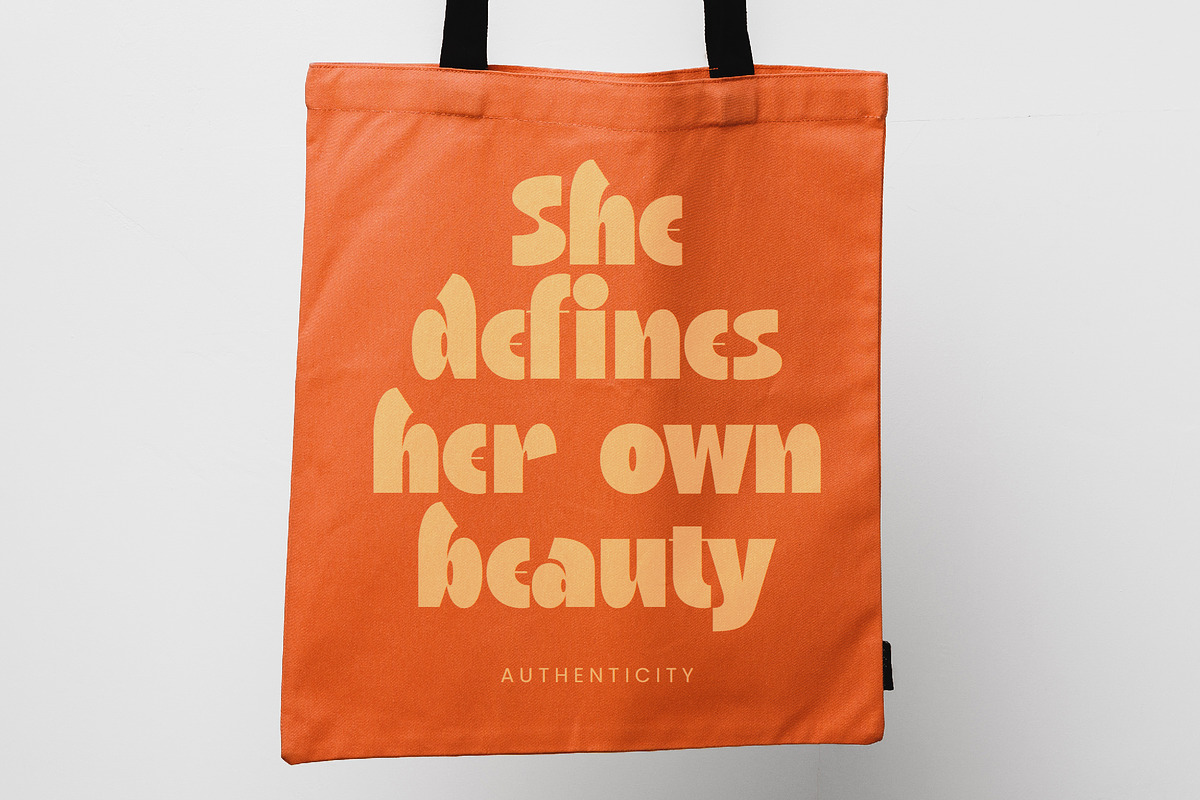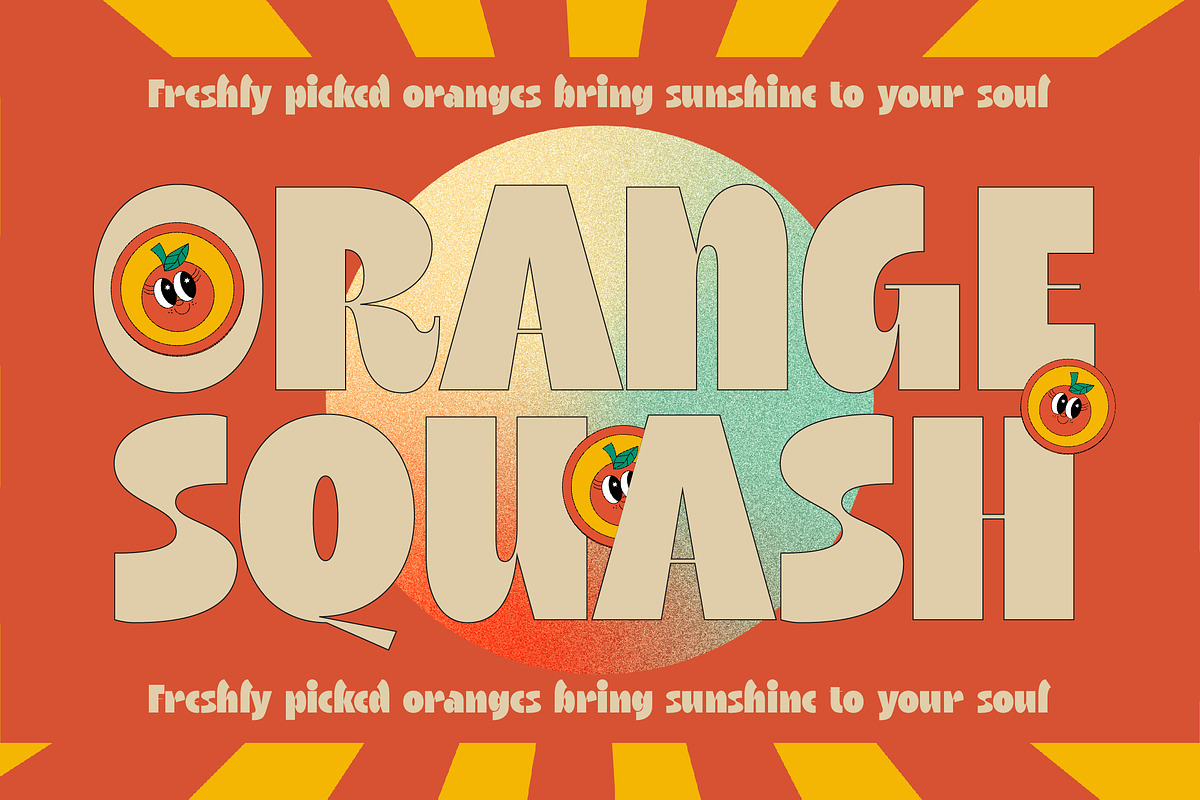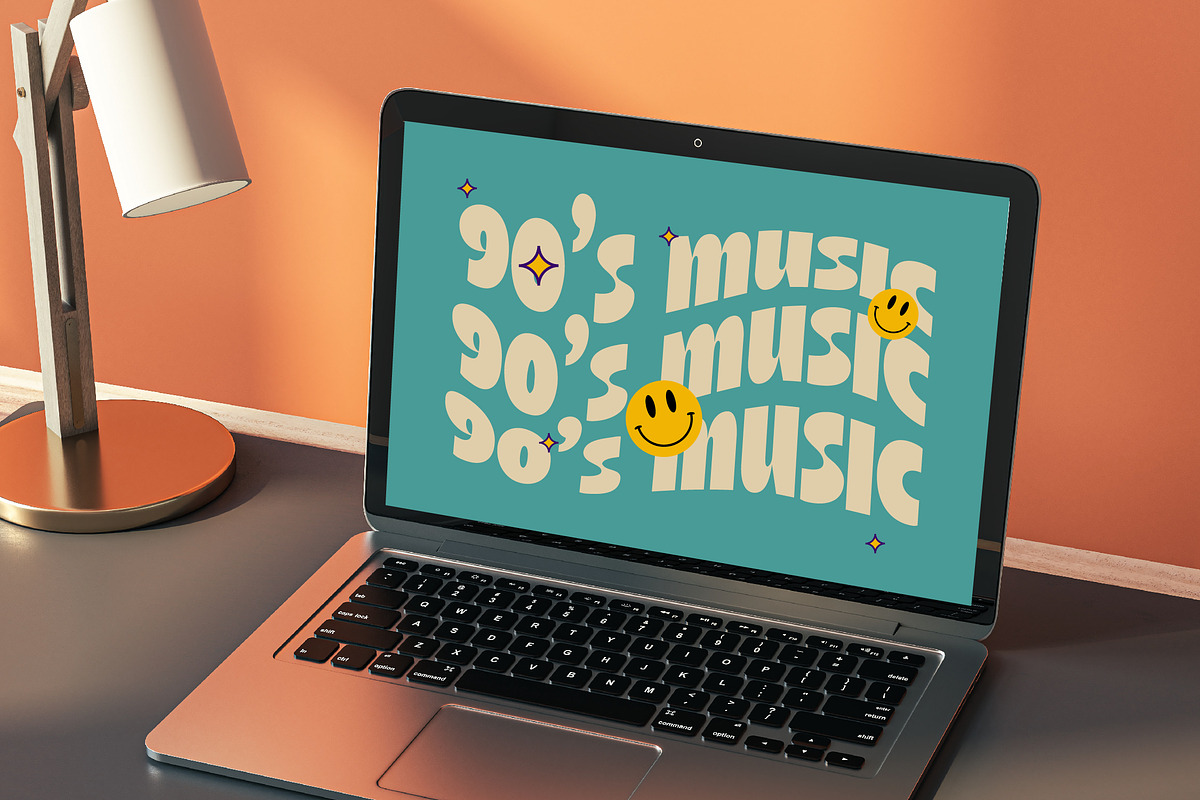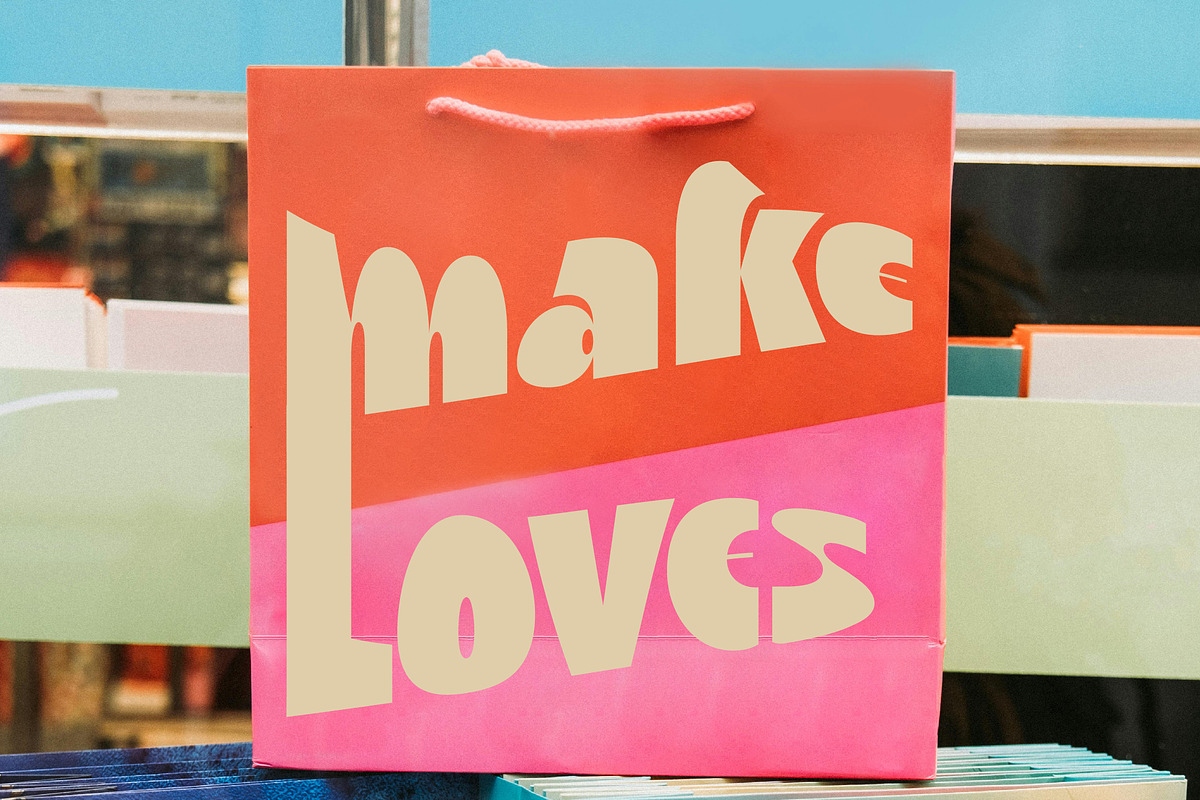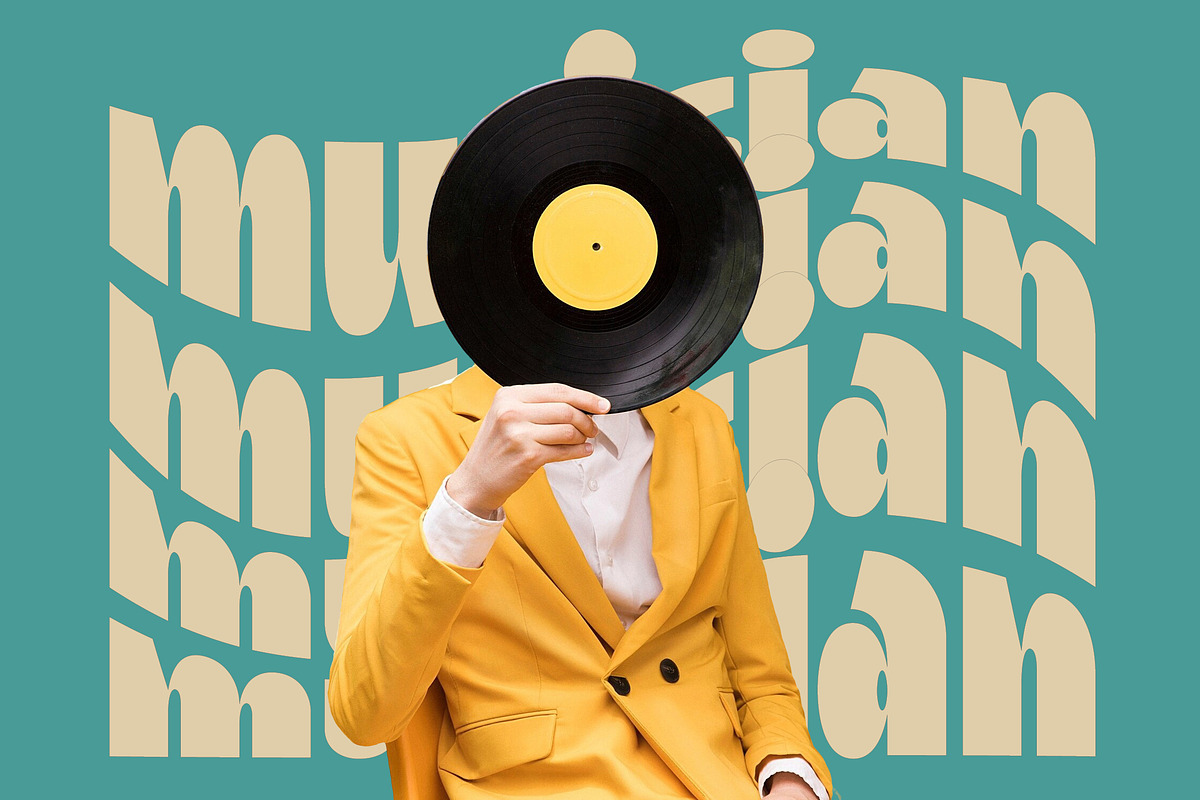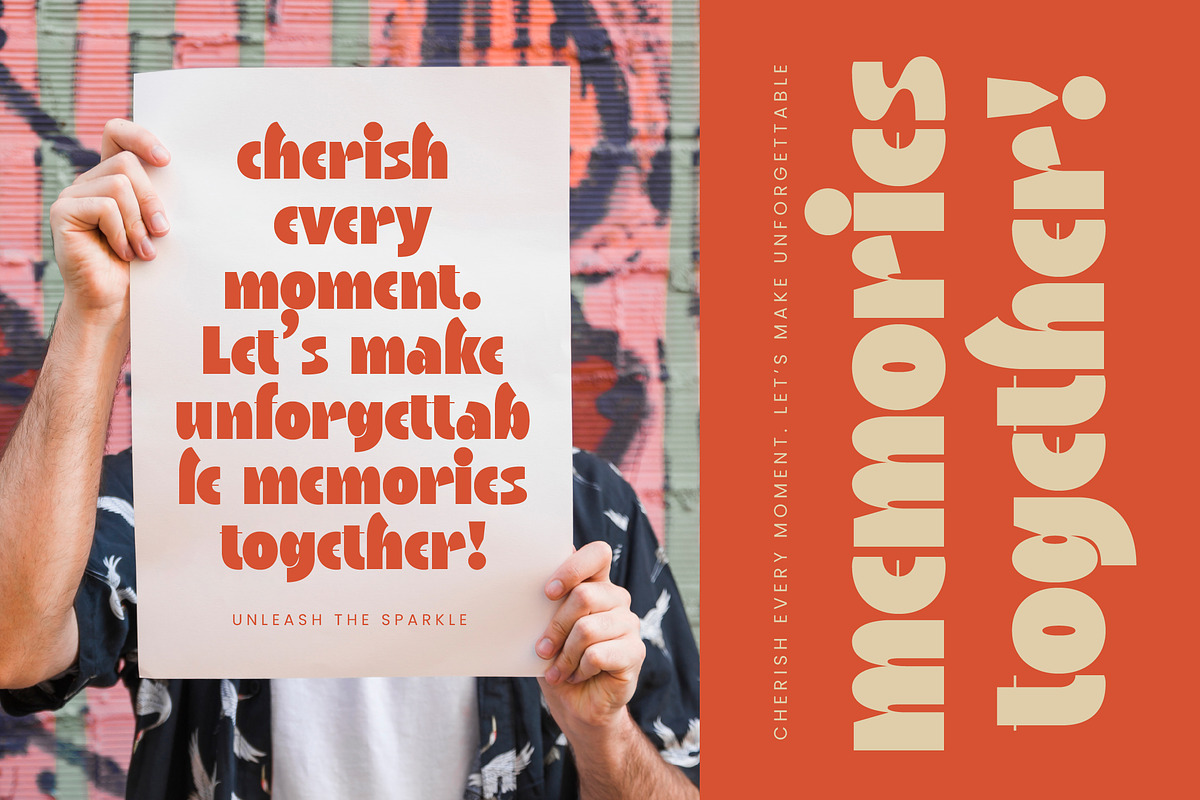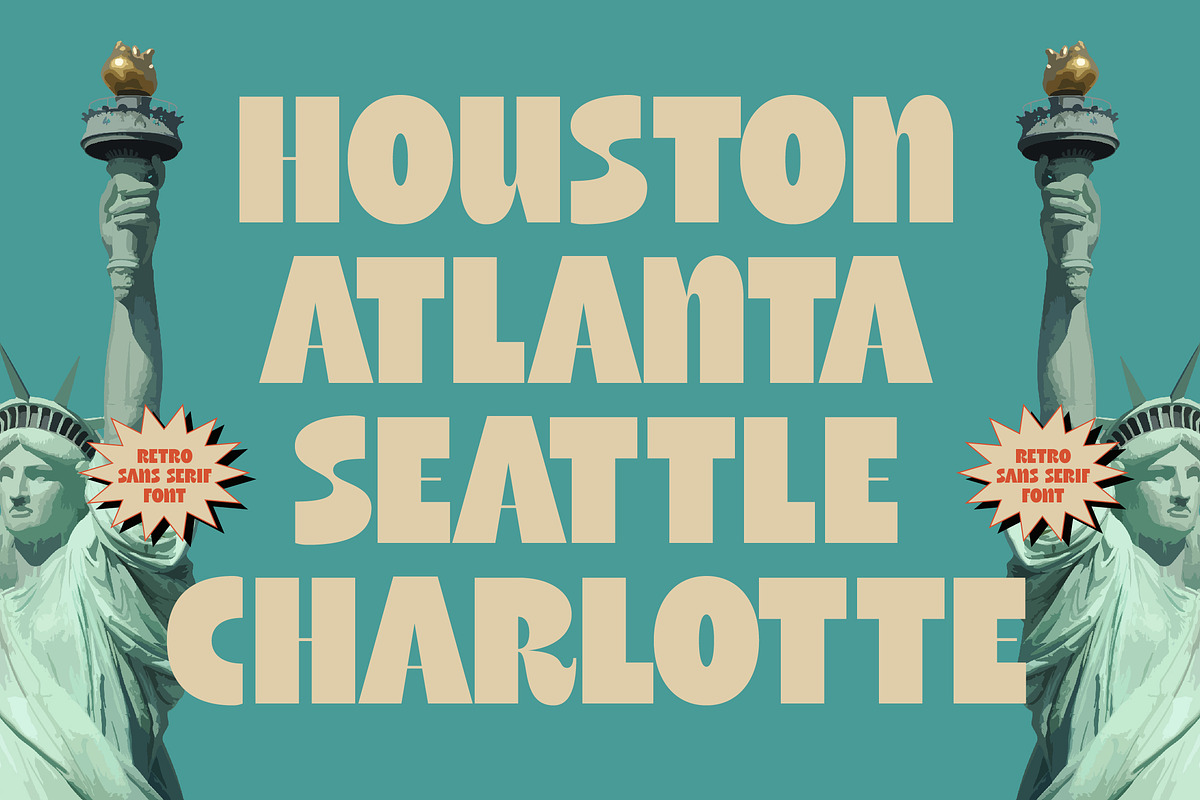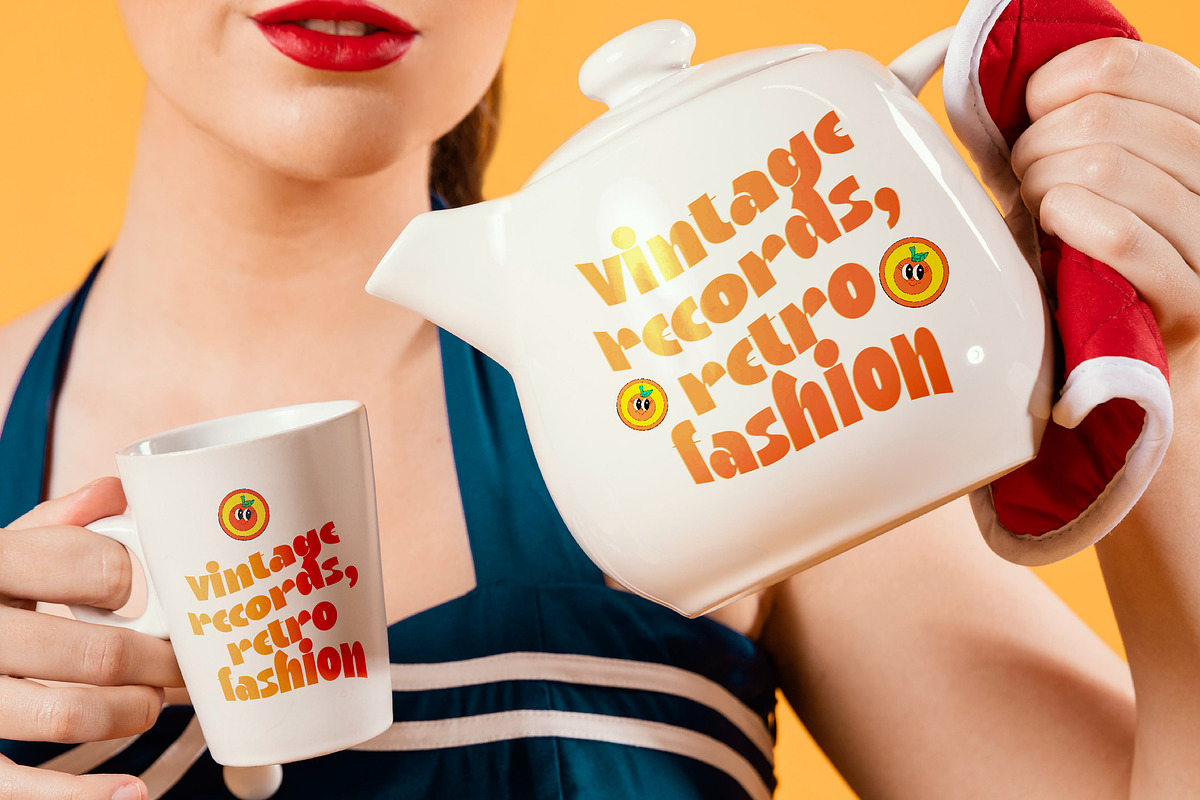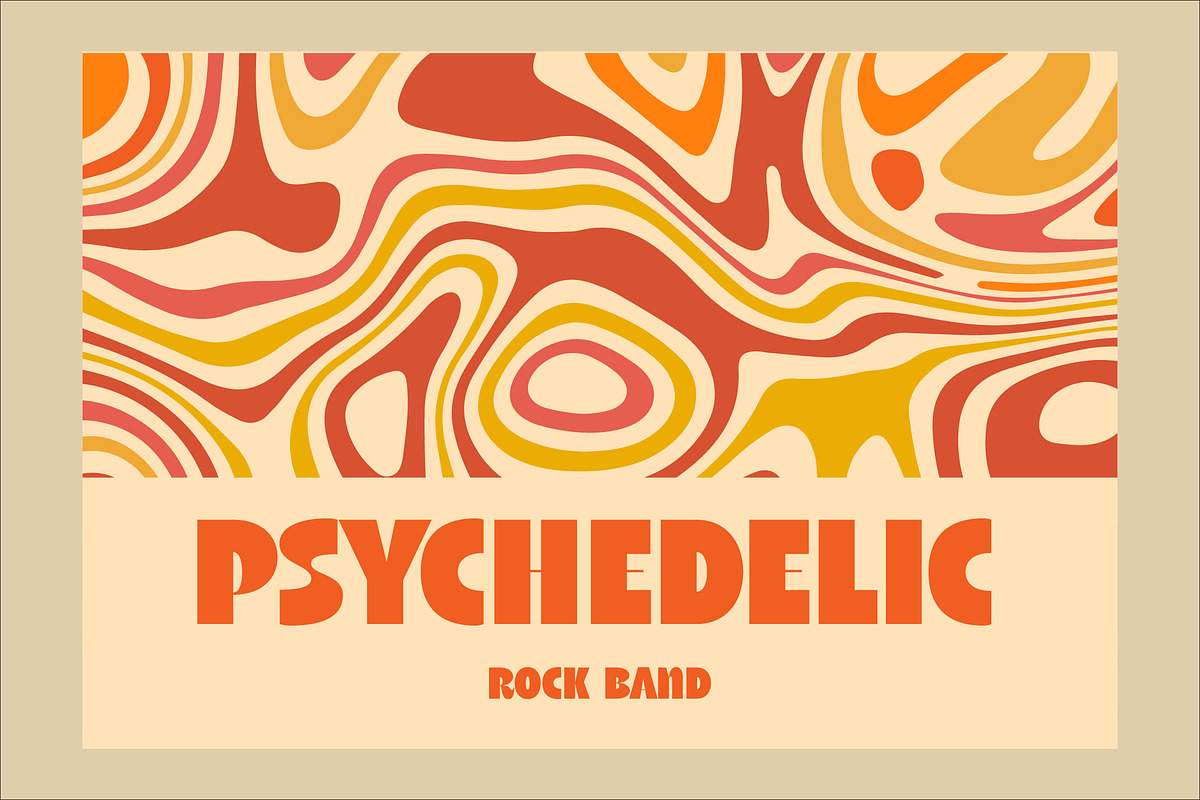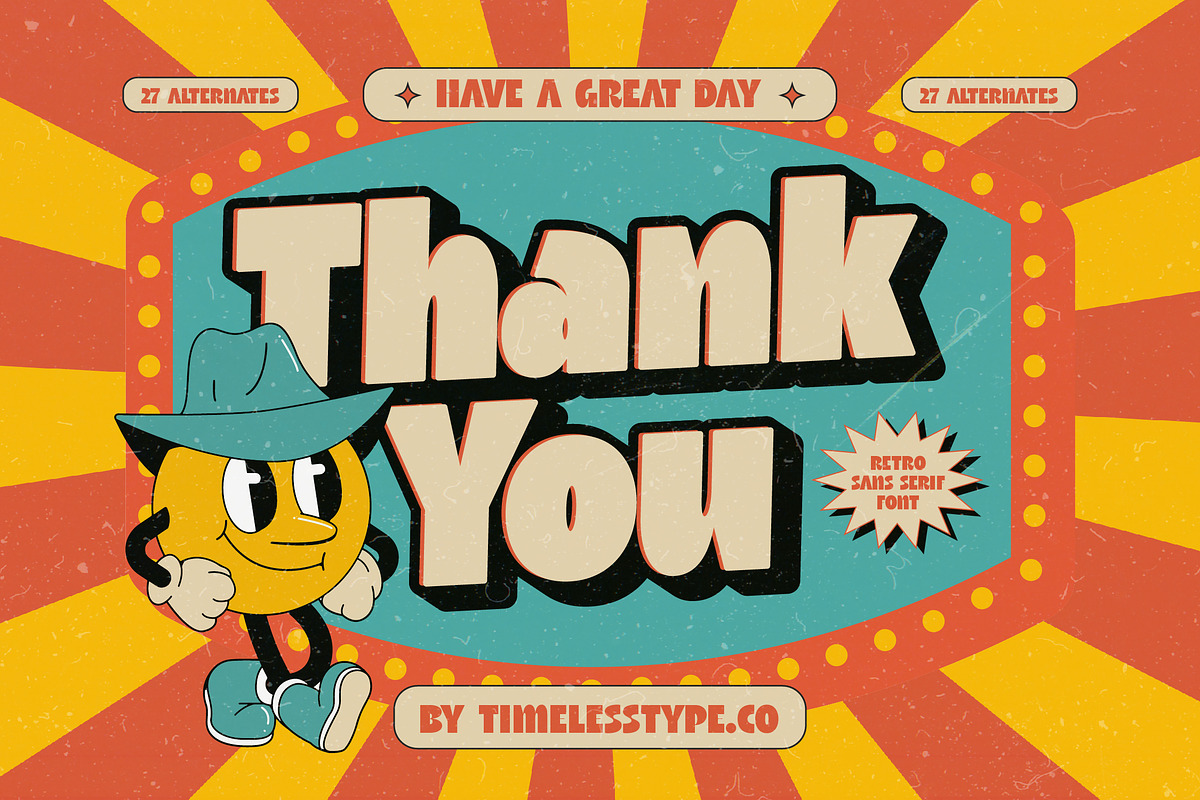
Rinka Stylo Retro Display Font
Rinka Stylo is a vibrant explosion of nostalgic energy designed to bring a playful and rhythmic soul to your contemporary design projects. This typeface acts as a visual time machine, inviting creators to embrace the saturated palettes and bold curves of a bygone era.
Inspired by the sun-drenched aesthetics of the 1970s and the psychedelic pulse of vintage poster art, the atmosphere of this font is purely celebratory. It captures the essence of vinyl record sleeves and mid-century marquee signs to create a truly immersive retro experience.
Providing more than just letters, this modern serif display offers a level of luxury typography that commands attention while maintaining a sense of whimsy. Its thick, confident weight serves as a high-impact high-contrast serif alternative, making it the perfect editorial font for those who need an immediate and lasting branding impact.
This typeface is perfectly positioned to capitalize on the current modern serif trend by offering a tactile, expressive alternative to sterile minimalist designs. It remains a top-tier choice among editorial display fonts for its ability to deliver character-driven typography that resonates with authenticity.
Whether you are crafting a unique logo design or building a cohesive identity for a new branding project, this font excels in diverse applications. It is exceptionally well-suited for high-energy editorial layouts, vintage-inspired product packaging, boutique wedding invitations, and trend-setting fashion lookbooks.
Equipped with a robust set of ligatures and creative alternates, the font allows for endless customization and unique word shapes. The inclusion of decorative swashes alongside full multilingual support ensures that your message reaches a global audience through a comprehensive set of international characters.